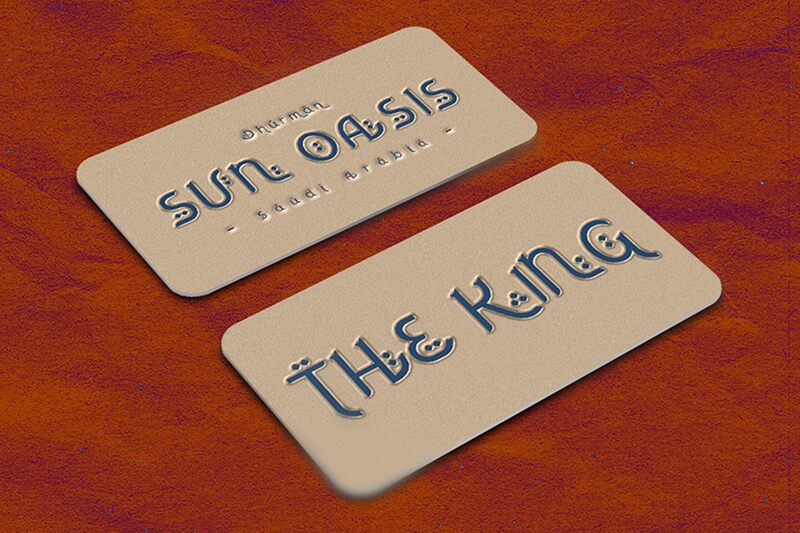
CF Dhurman font family designed by Indotype Foundry consists of 2 font styles in foreign font style. This unique font family elaborates on the foreign style with some artistic and vintage inspiration. Similar to other fonts of similar type, the unique foreign letter shapes always impose mystery and fascination from the audience.
Moreover, the artistic and cultural influence present in these characters is a great match for cultural purposes, for retro or vintage projects, or some experimental modern attempts. Magazines, business cards, greeting cards, branding, books, digital designs, exhibitions, packaging, signages, and any other project of choice.